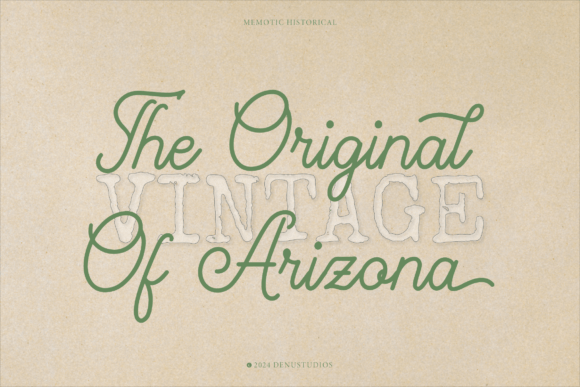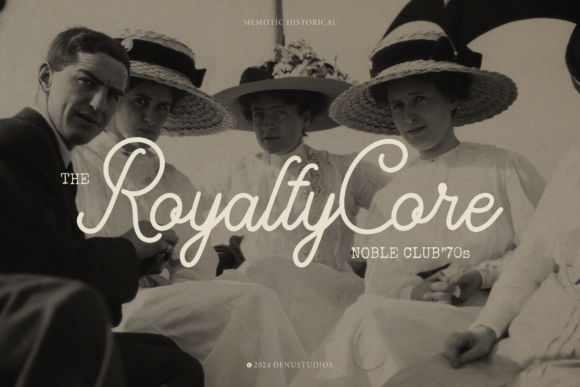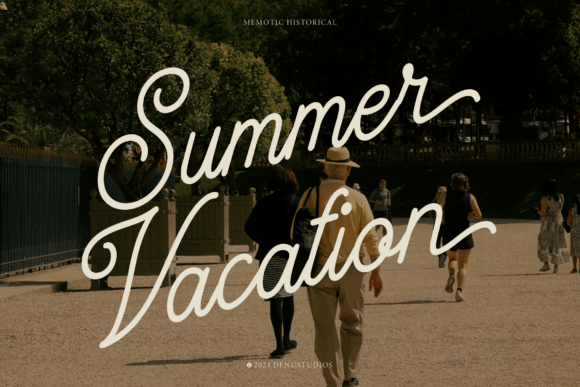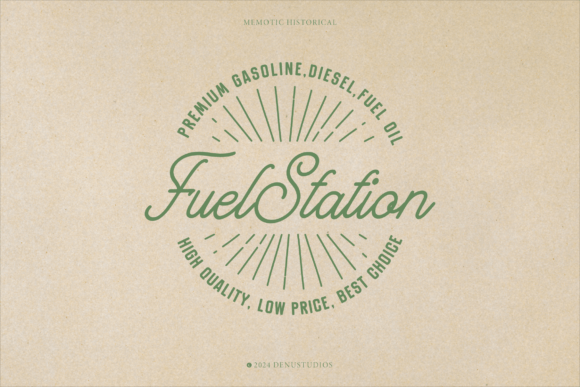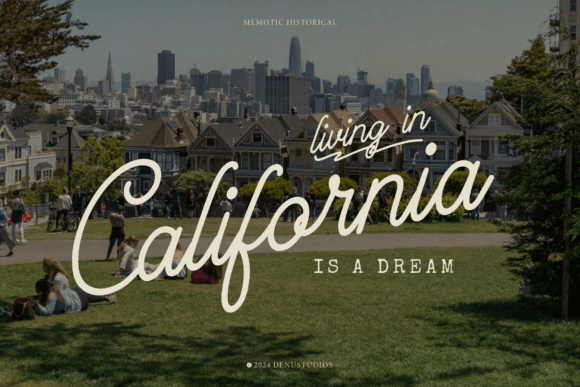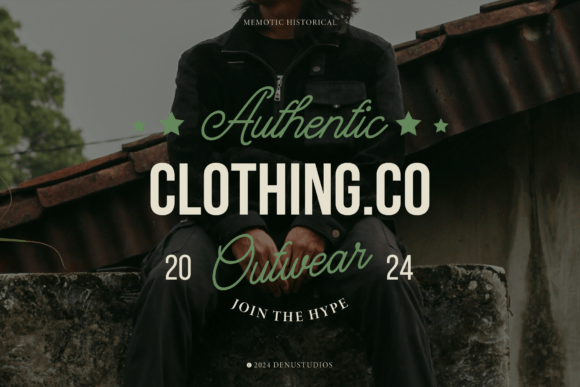
Introduction to Memotic Historical Font
Memotic Historical is a smooth, elegant monoline script font that gives a classic, vintage feel.
With its thin, single-line strokes, itโs perfect for creating stylish, timeless designs like logos, invitations, and quotes Its flowing letters add a touch of sophistication, making it great for both modern and retro-inspired projects.
Key Features of Memotic Historical Font